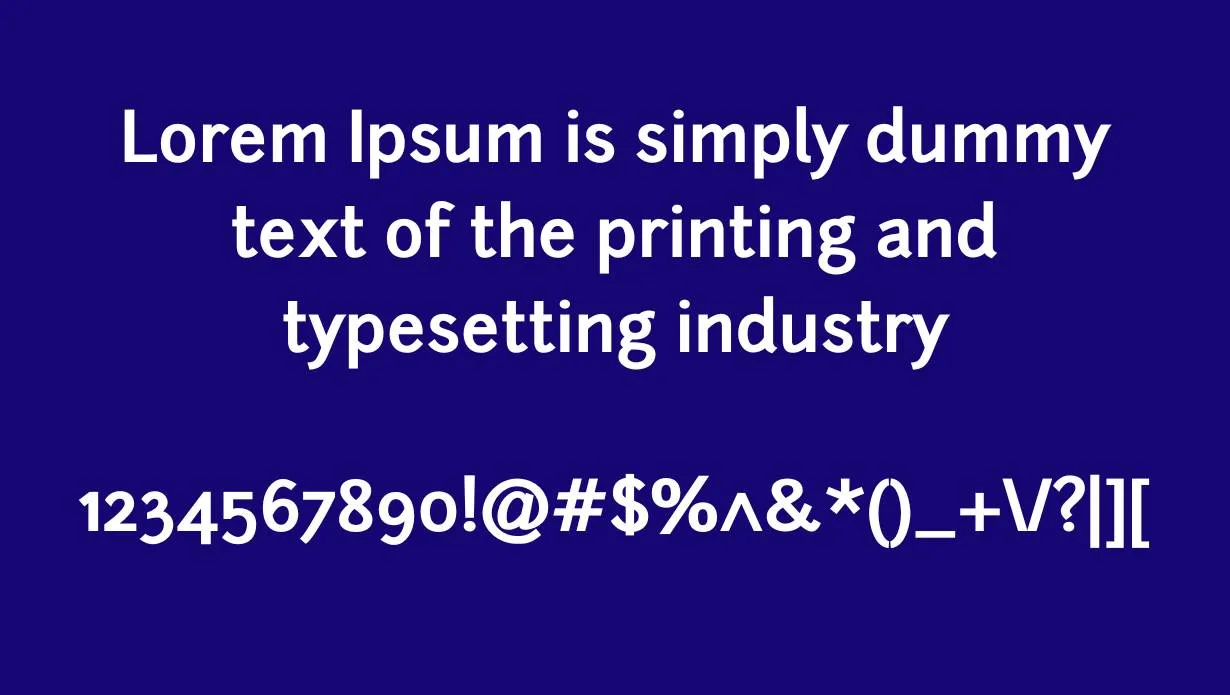
Junction Font is a modern and versatile sans-serif typeface suitable for various design applications. Its clean lines and multiple styles make it a practical choice for branding, advertising, web design, and packaging.
| Name | Junction Font |
| Designer | The League of Moveable Type |
Junction Font Family